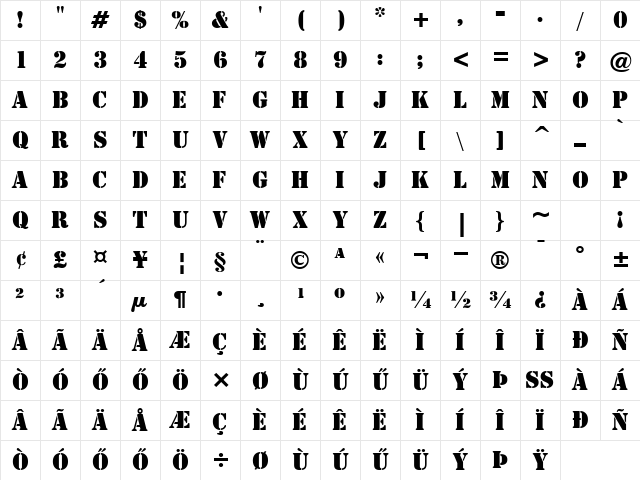
H_Stencil BT Regular
Design Context for H_Stencil BT
H_Stencil BT borrows the utilitarian aesthetic of stencil lettering, with its characteristic cutaways and no-frills construction lending an industrial edge.
Pro Tip: Use H_Stencil BT at large sizes on packaging, posters, or apparel where the stencil cutaways read clearly. Avoid small sizes where those gaps become visual noise.